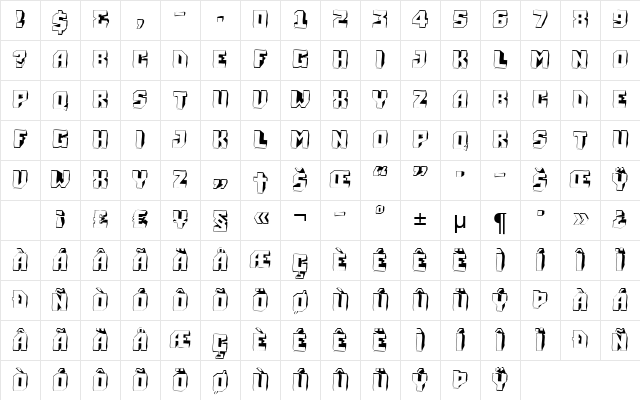
Complete a_Simpler3DWv Regular glyph index. Displaying only characters natively supported by a_Simpler3DWv Regular font.
a_Simpler3DWv is a composed and adaptable typeface that performs quietly and consistently across a wide range of design contexts.